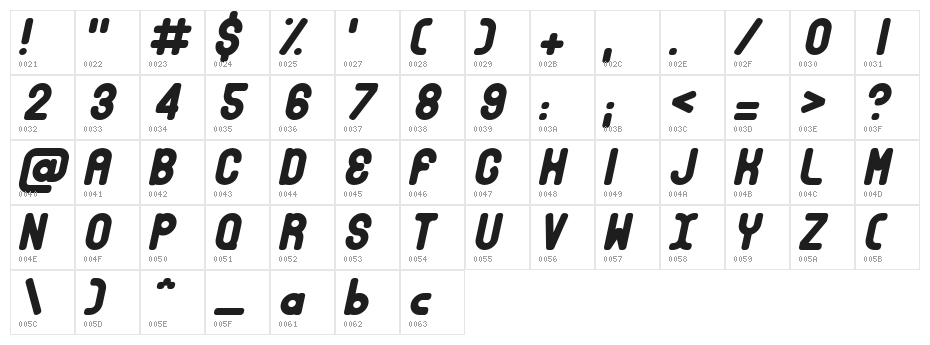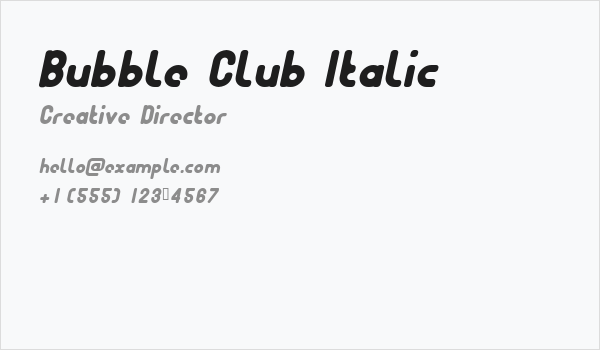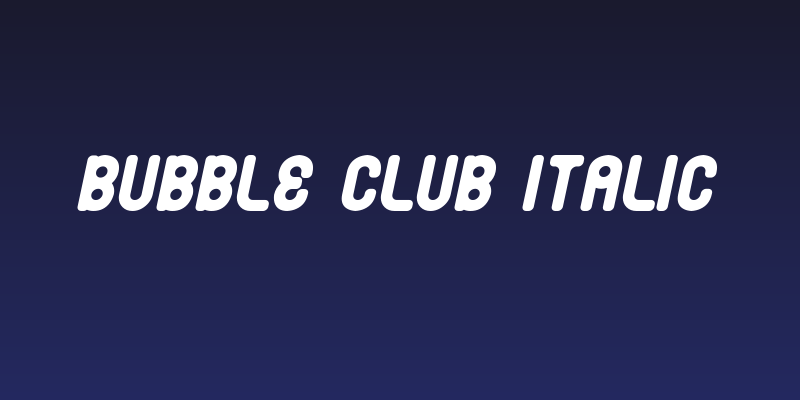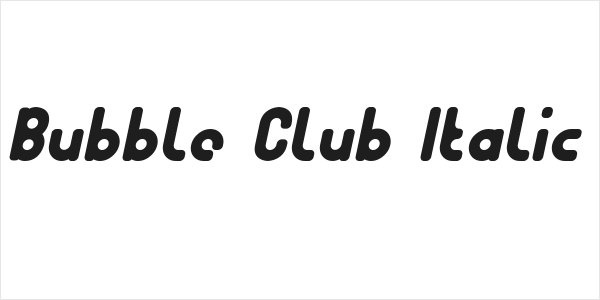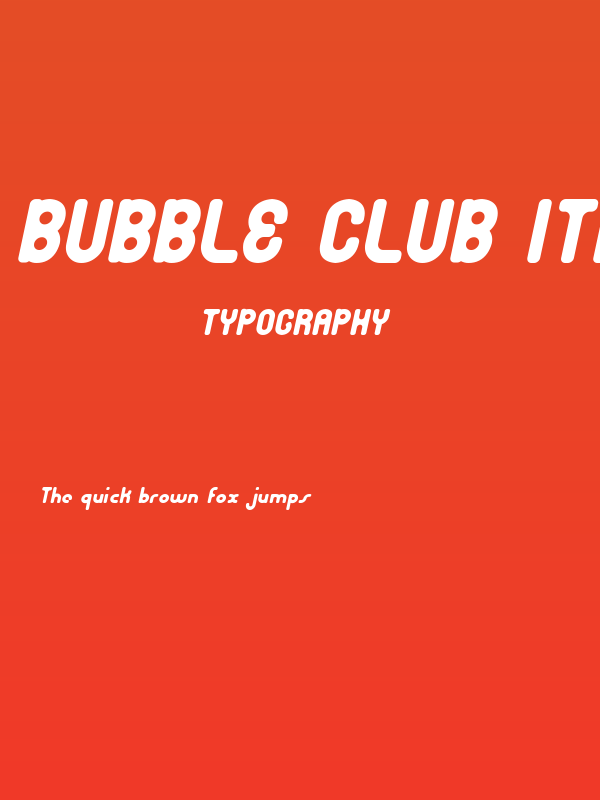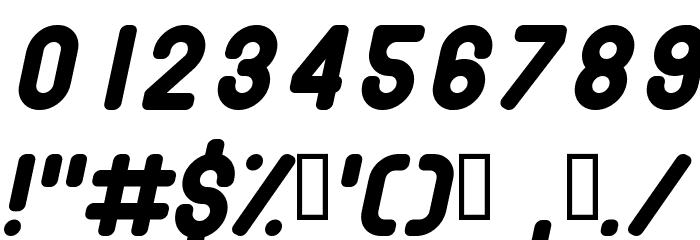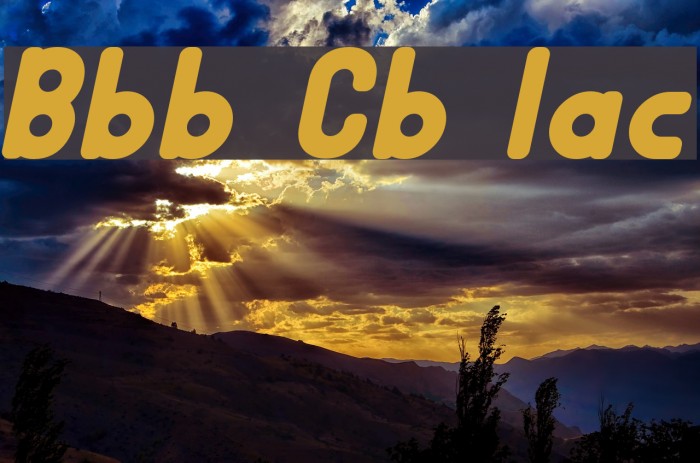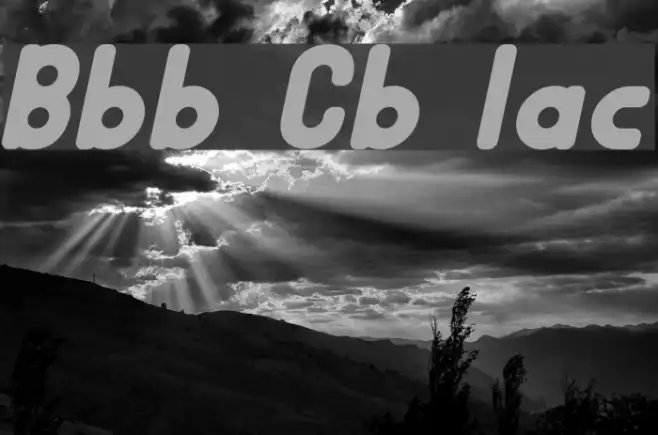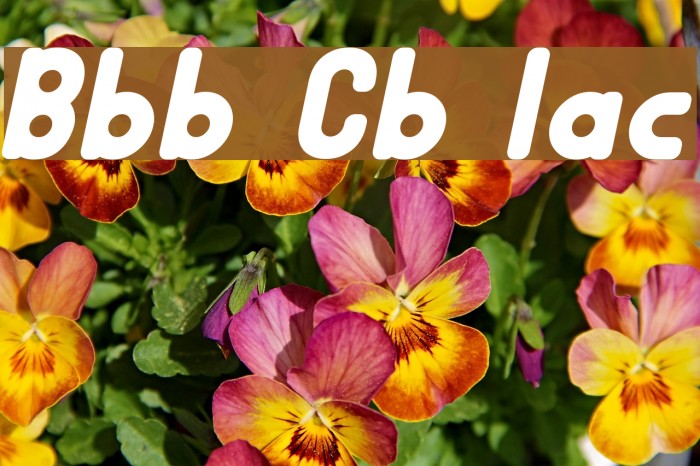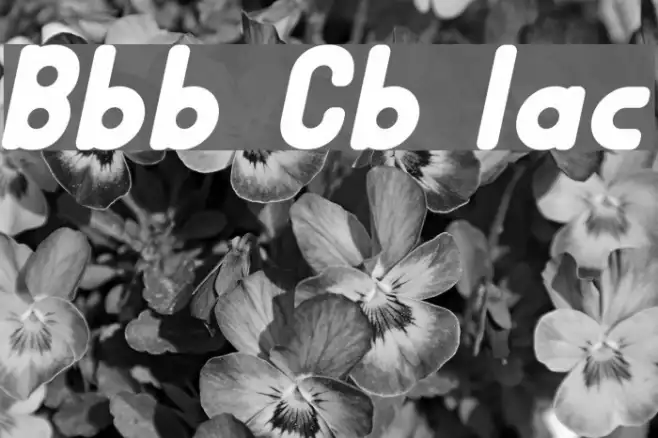
Bubble Club Italic Font
Bubble Club Italic Description
This playful and rounded font features a bubbly, soft appearance with a consistent italic slant, giving it a dynamic and friendly feel. The characters are bold and slightly condensed, with smooth curves and a uniform stroke width that maintains readability while adding a touch of whimsy. The font's design is cohesive, with each letter seamlessly flowing into the next, creating a harmonious and approachable aesthetic. The numbers and special characters share the same rounded and playful characteristics, ensuring consistency across all elements.
| Width | Condensed |
| Overall Style | Playful |